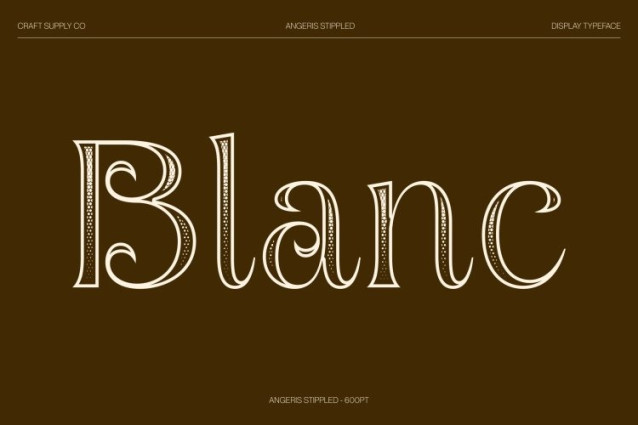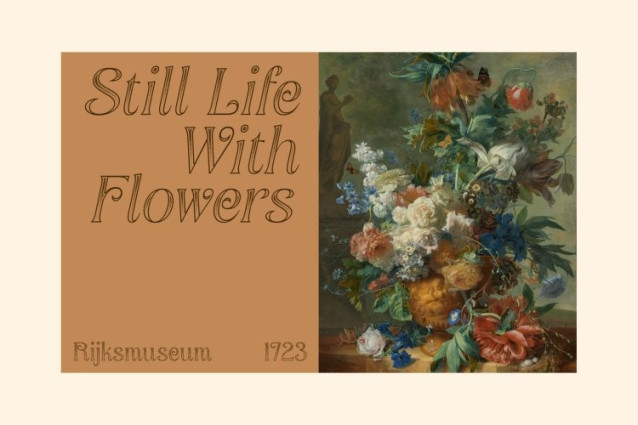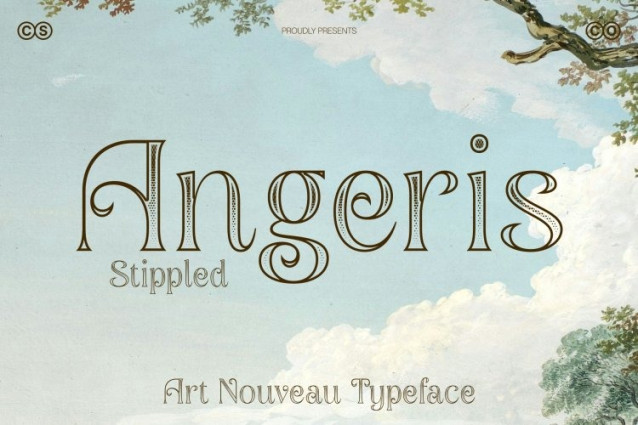
Angeris Stippled Font
Angeris Stippled Font – This draws inspiration from the iconic Art Nouveau movement, infused with a retro charm that evokes timeless nostalgia. Enhanced with a dense stippled texture reminiscent of classic ink-dot and stippling illustration techniques, the font gains a handcrafted, artistic quality that deepens its vintage character while maintaining a refined modern presence.
Serif Retro Design with Textured Depth
Built on a graceful serif foundation, exudes early 20th-century elegance. The serif details are enriched by subtle dotwork shading, adding visual depth and a tactile impression that enhances its classic appeal. This textured treatment preserves readability while giving the letterforms a distinctive artistic finish.
Intricate Flowing Details Inspired by Art Nouveau
Each character reflects the flowing curves and ornate flourishes characteristic of Art Nouveau typography. The stippled surface accentuates these decorative elements, softening transitions and adding richness to the forms. The result is a harmonious blend of structure and ornament sophisticated, expressive, and visually captivating.
Versatile with Vintage-Modern Appeal
This font adapts beautifully across branding, editorial layouts, packaging, and decorative design projects. Its nostalgic yet contemporary aesthetic makes it ideal for designs that seek vintage sophistication with artistic depth. Whether used in headlines or refined compositions, it elevates visuals with warmth, elegance, and timeless charm.